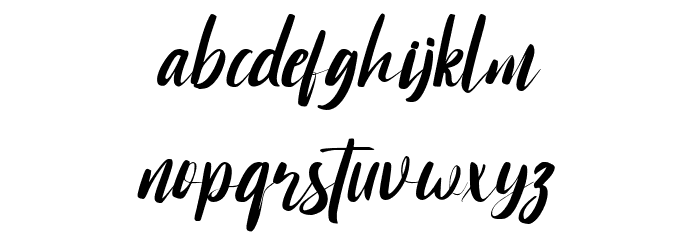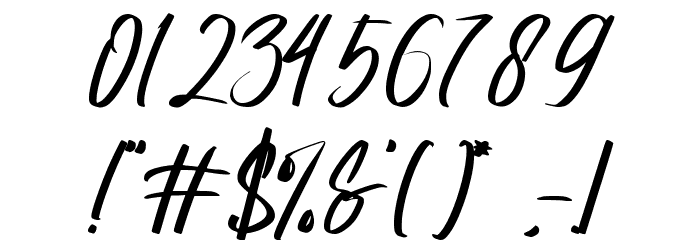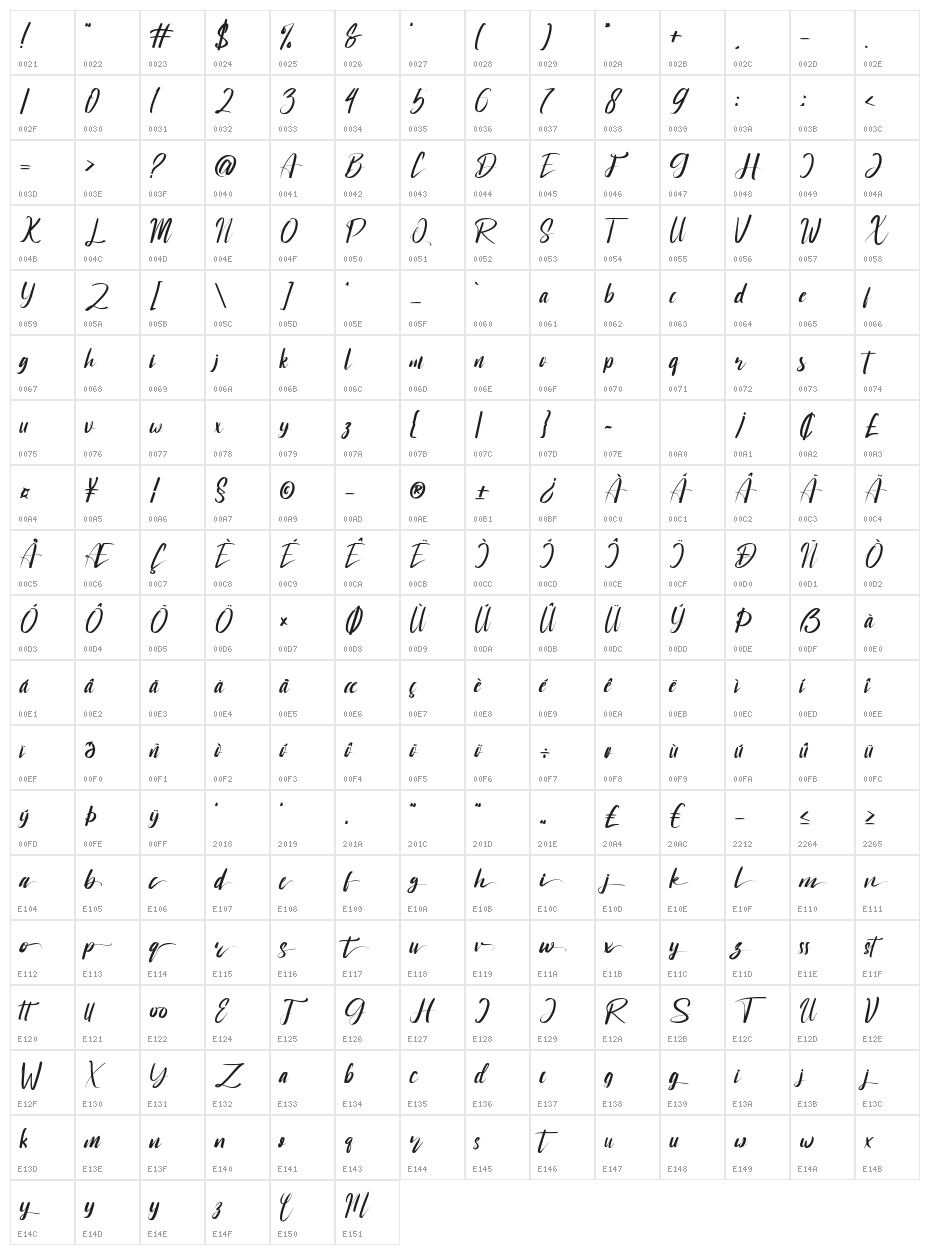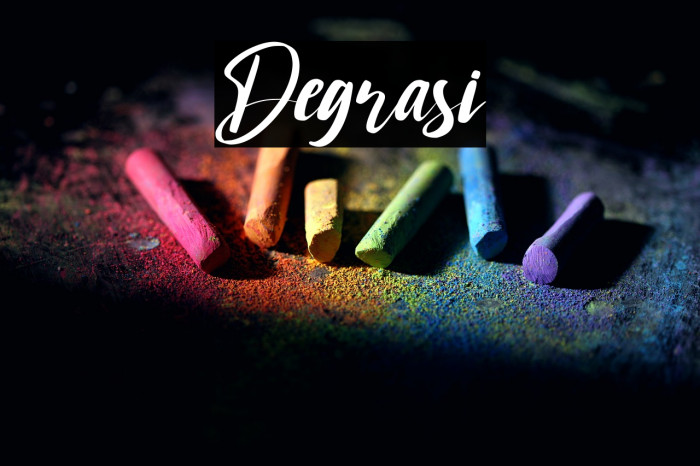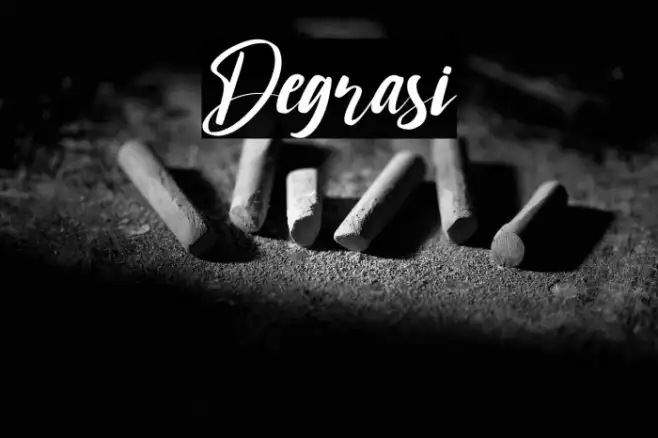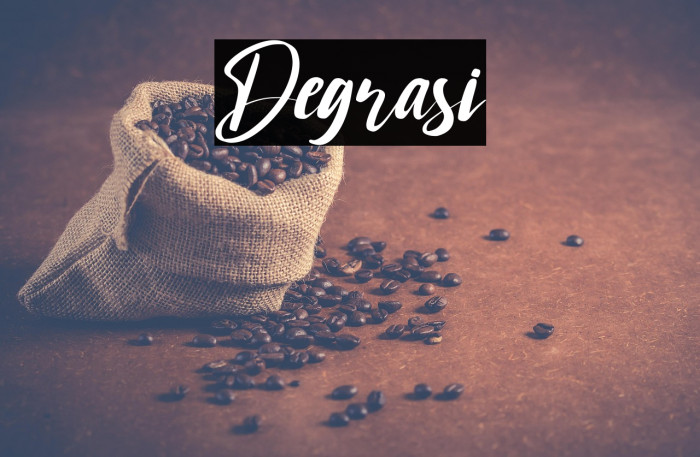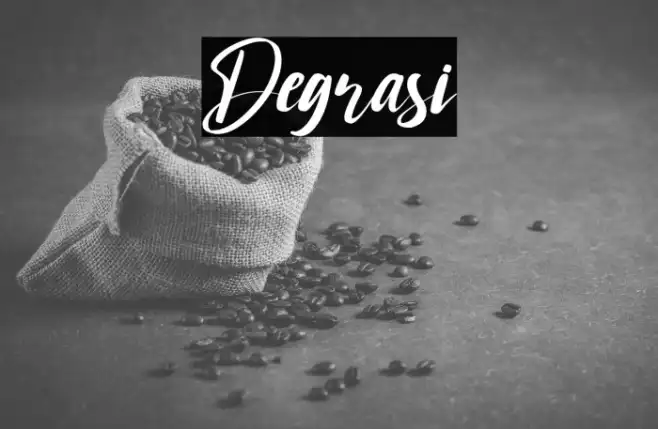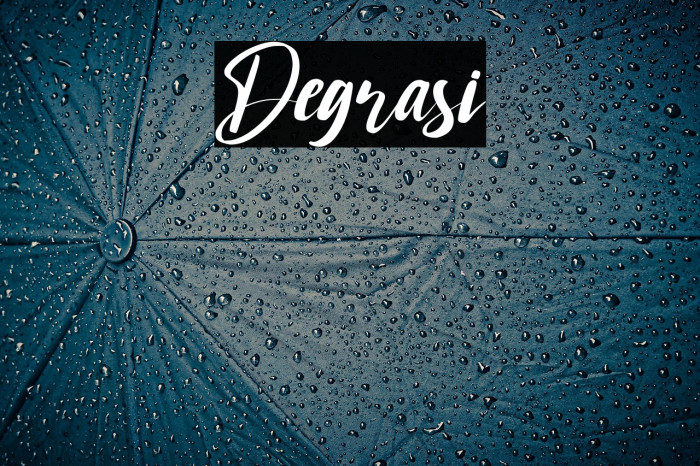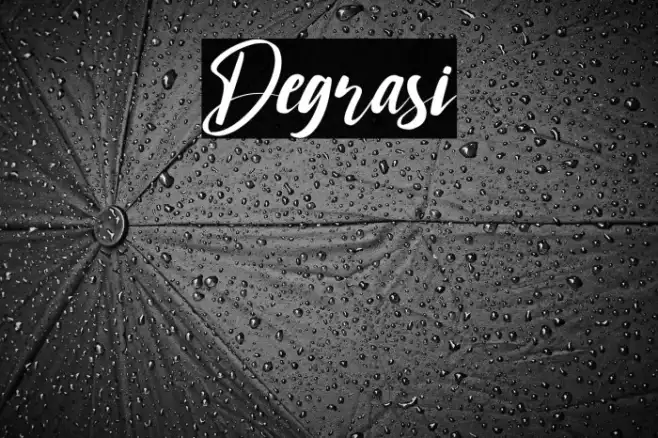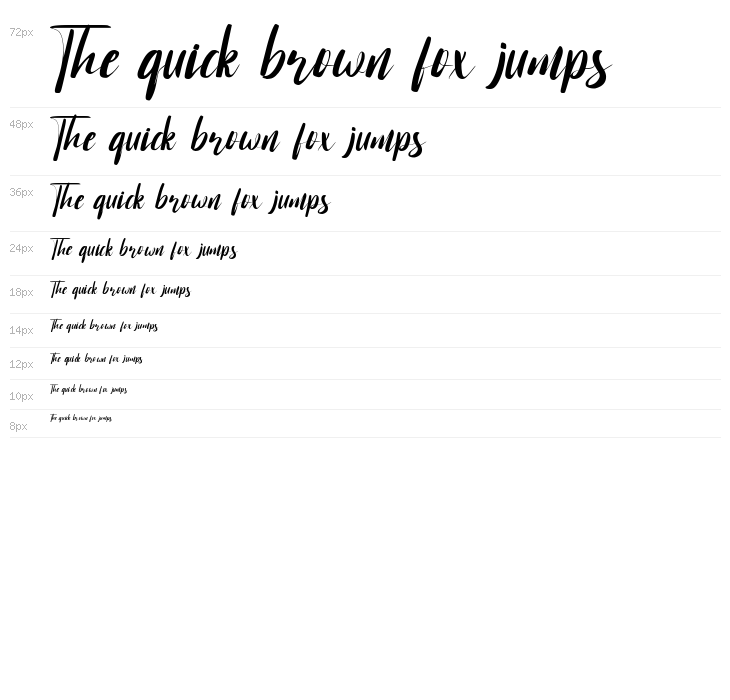
Degrasi Font
This font features a dynamic and flowing script style, characterized by its elegant and fluid strokes. The uppercase letters exhibit a sophisticated flair with varying line thickness, creating a sense of movement and grace. The lowercase letters maintain a consistent style, with smooth curves and a slightly informal touch. Numbers and special characters are designed to complement the overall aesthetic, maintaining the same fluidity and elegance. The font's design is suitable for creating a personal and artistic touch in various design projects.
A dynamic and elegant script font with fluid strokes and sophisticated flair.
- Proposed Projects: Ideal for wedding invitations, greeting cards, branding, and logo design where a personal and artistic touch is desired.
- Use Case: Logos, Invitations, Artistic projects